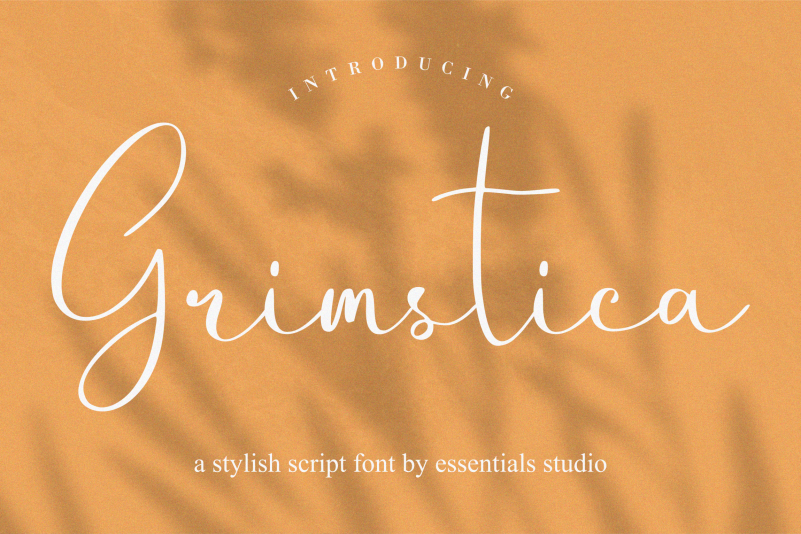
Grimstica Font
Grimstica Font Is a Stylish Script Font. Grimstica is perfect for product packaging, branding project, megazine, social media, wedding, or just used to express words above the background.